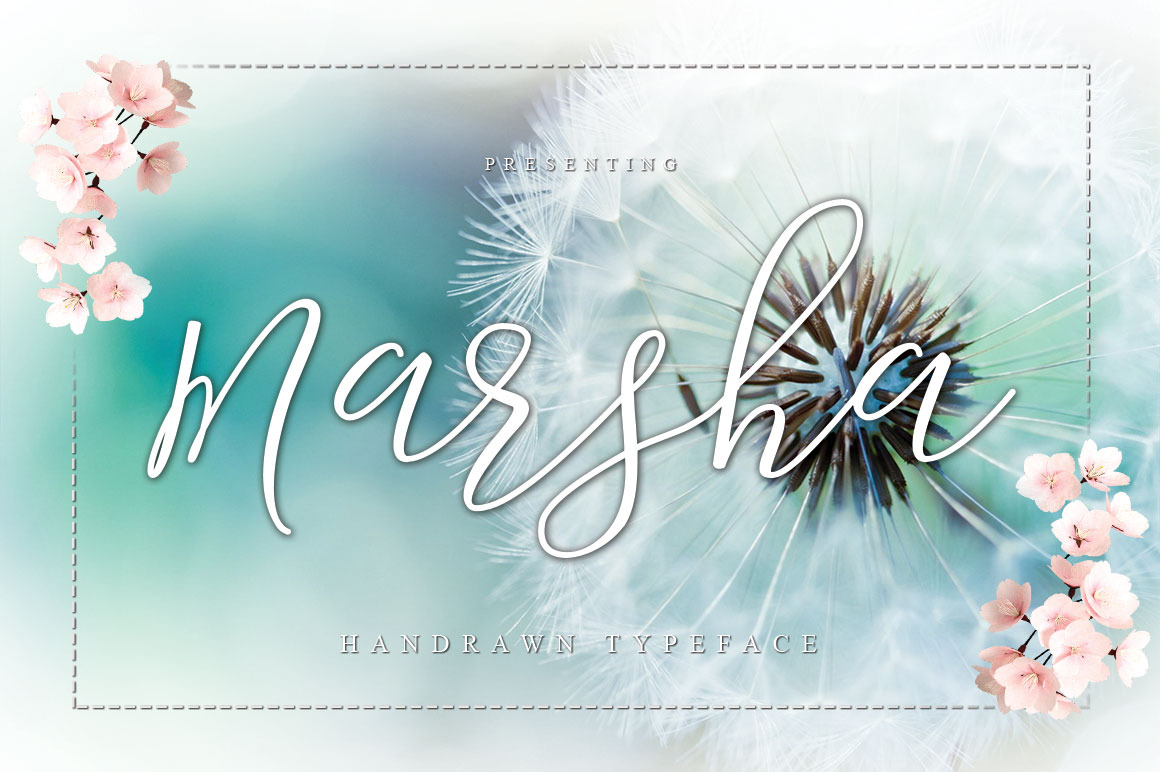
Marsha Typeface
Marsha Script is a handwriting script font which good looks, trendy and charmed feeling. Create with concern and add your project with jazzy feeling too. Marsha Script is just what you've been looking for!
Use Marsha Script on all of your projects to give delicacy and sophisticated taste. In particular would look great on, branding projects, logos, product packaging, posters, invitations, greeting cards, titles, blogs, everything that includes particular charm and you name it. ;)
Marsha Script lettering script comes with upper and lowercase characters, punctuation glyphs, numerals and a TTF of web font.Feel free to use it for commercial/ extended license purposes.